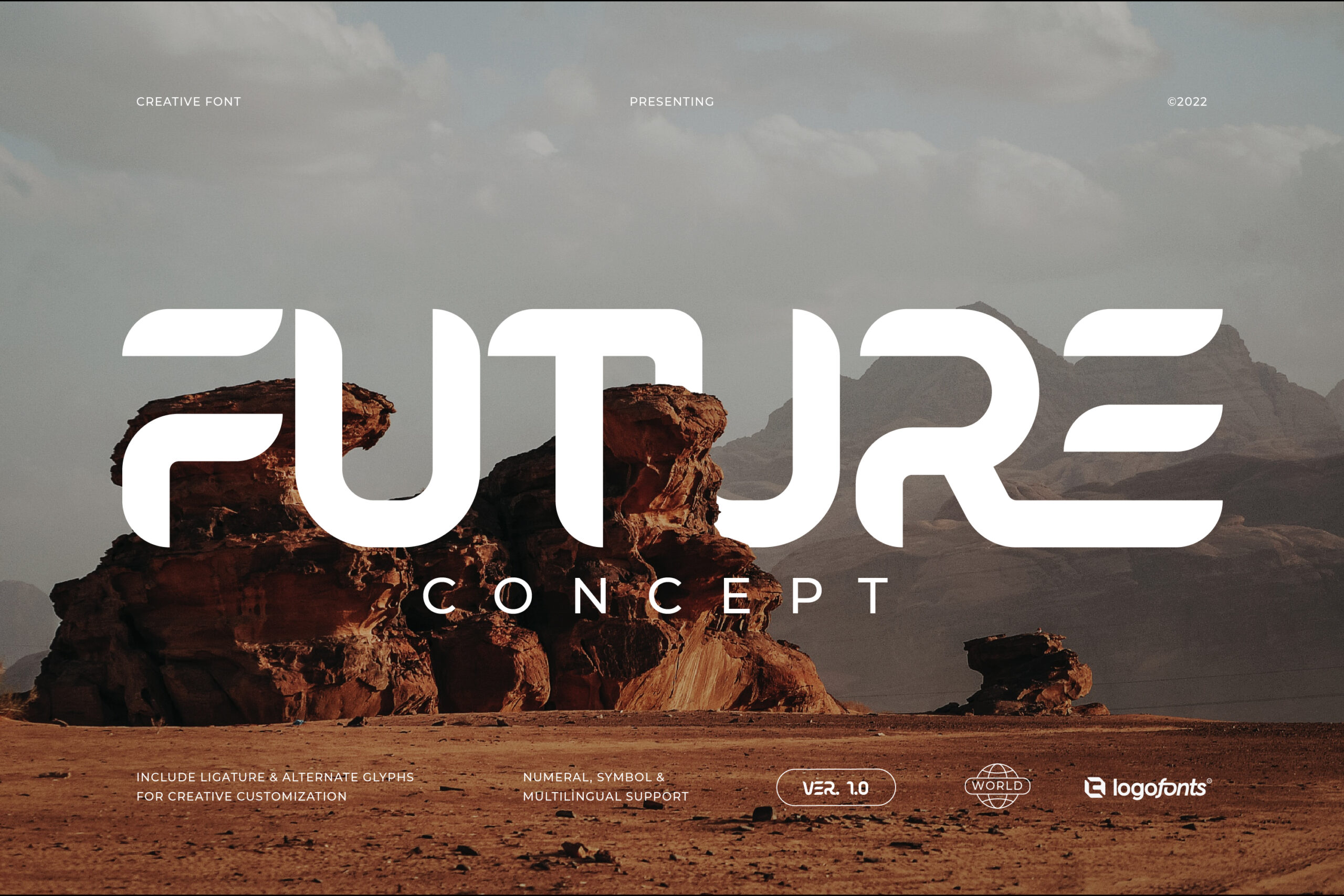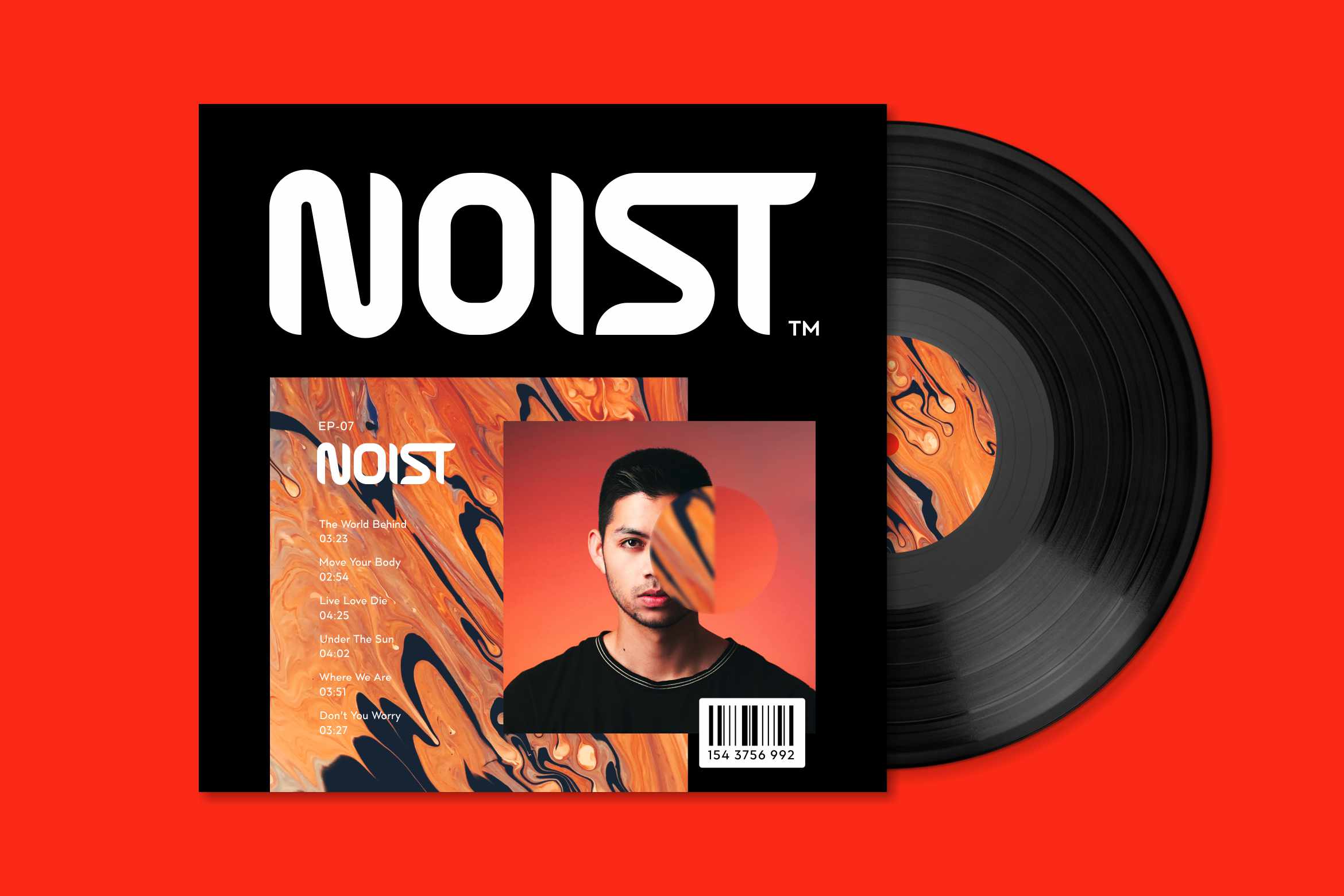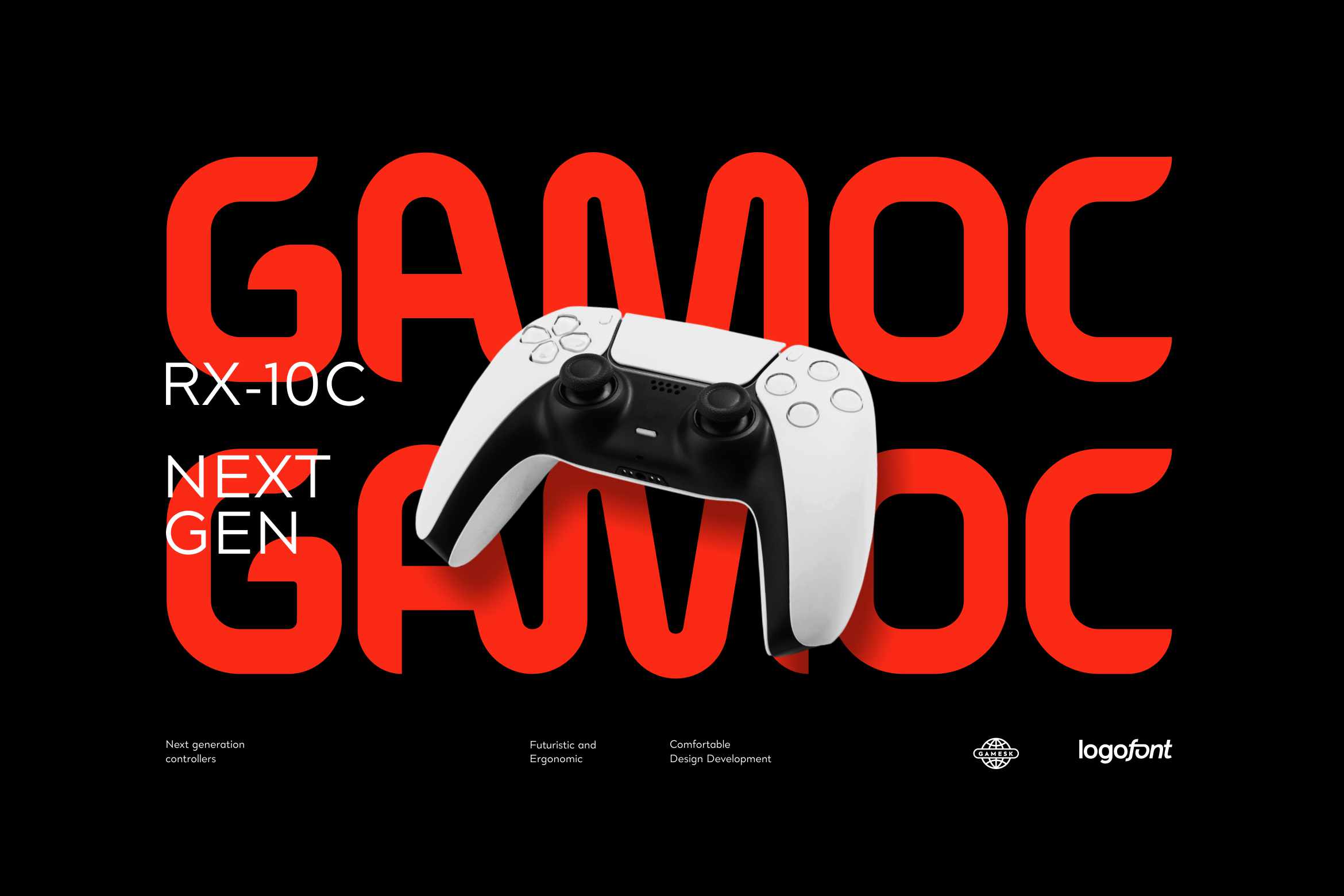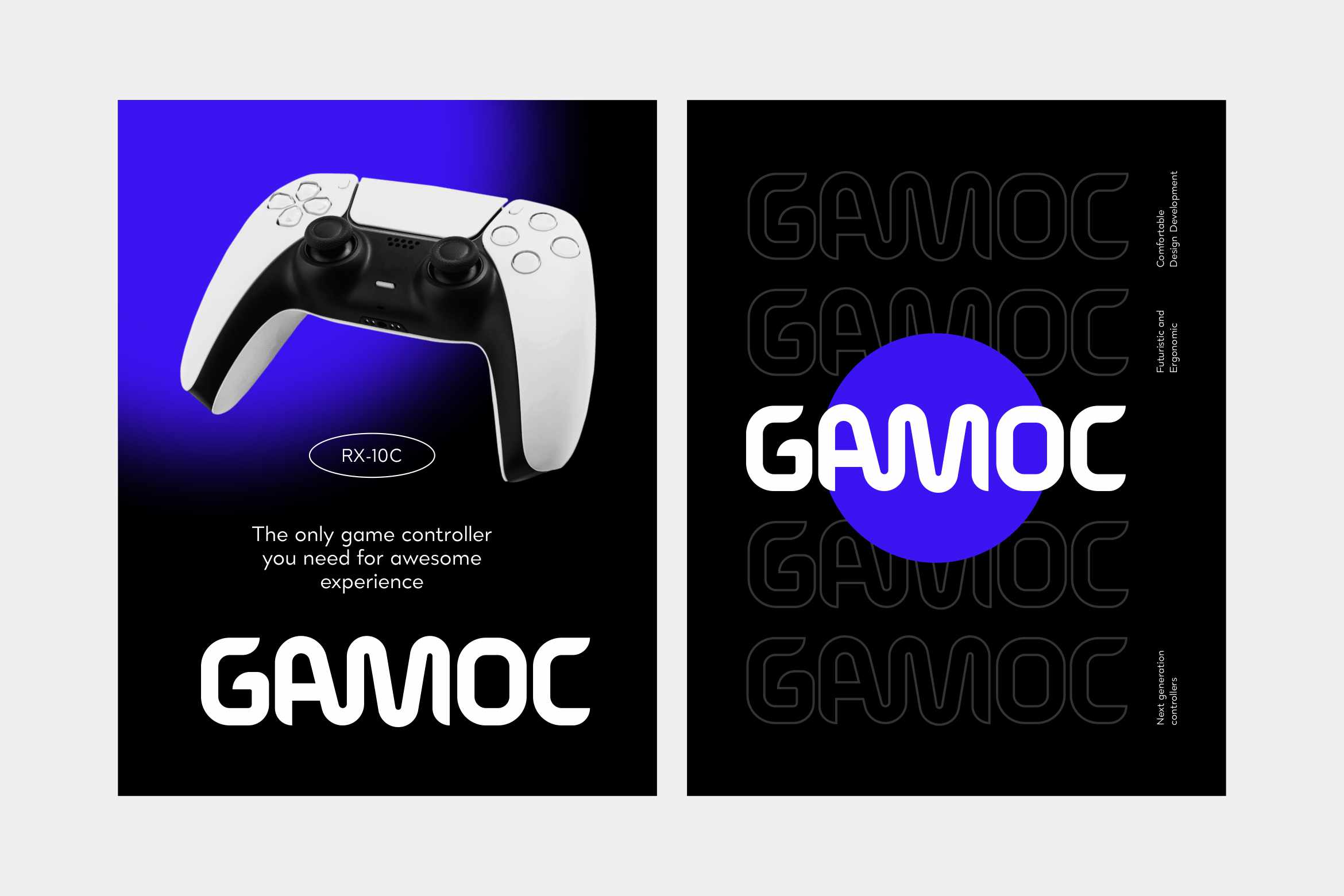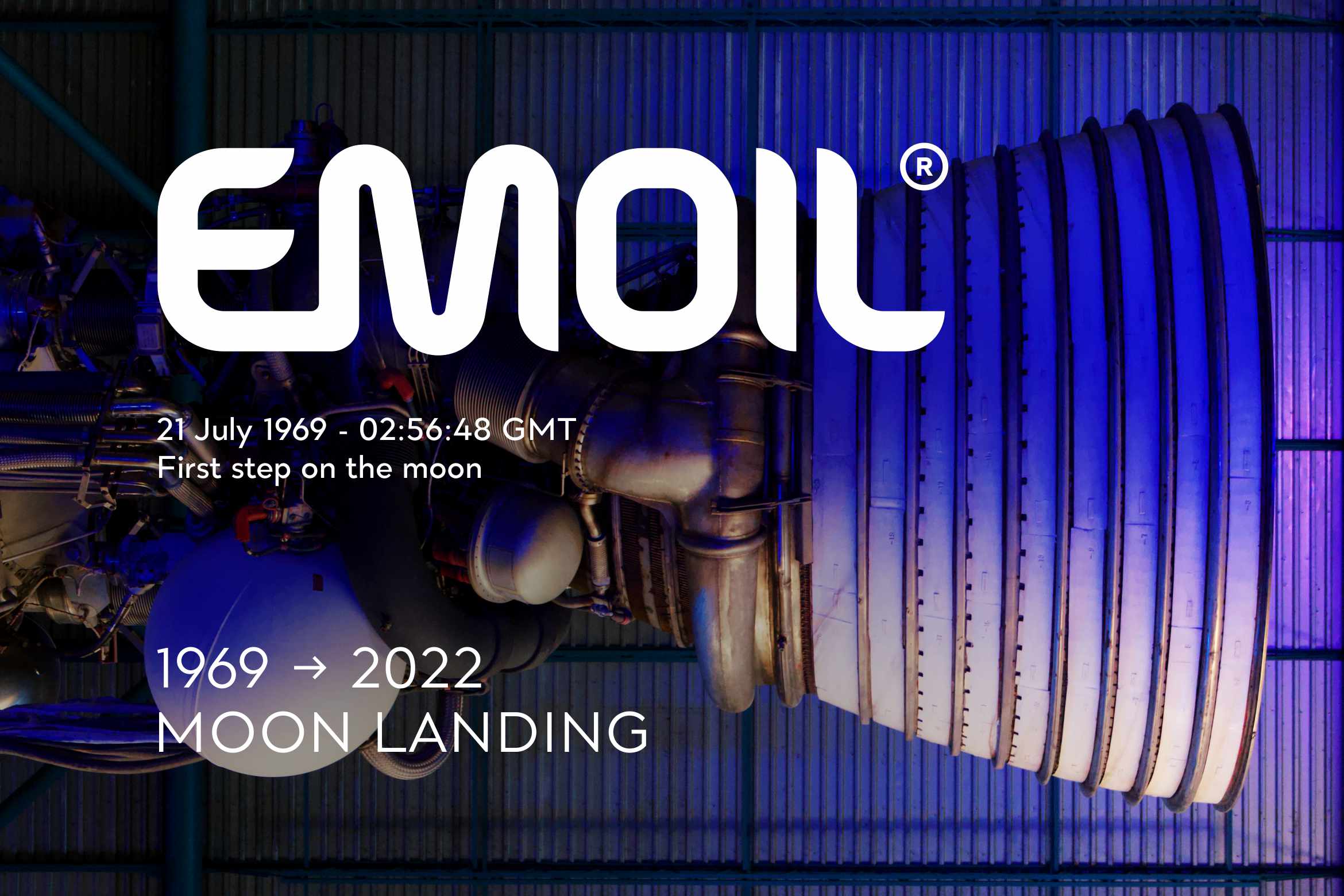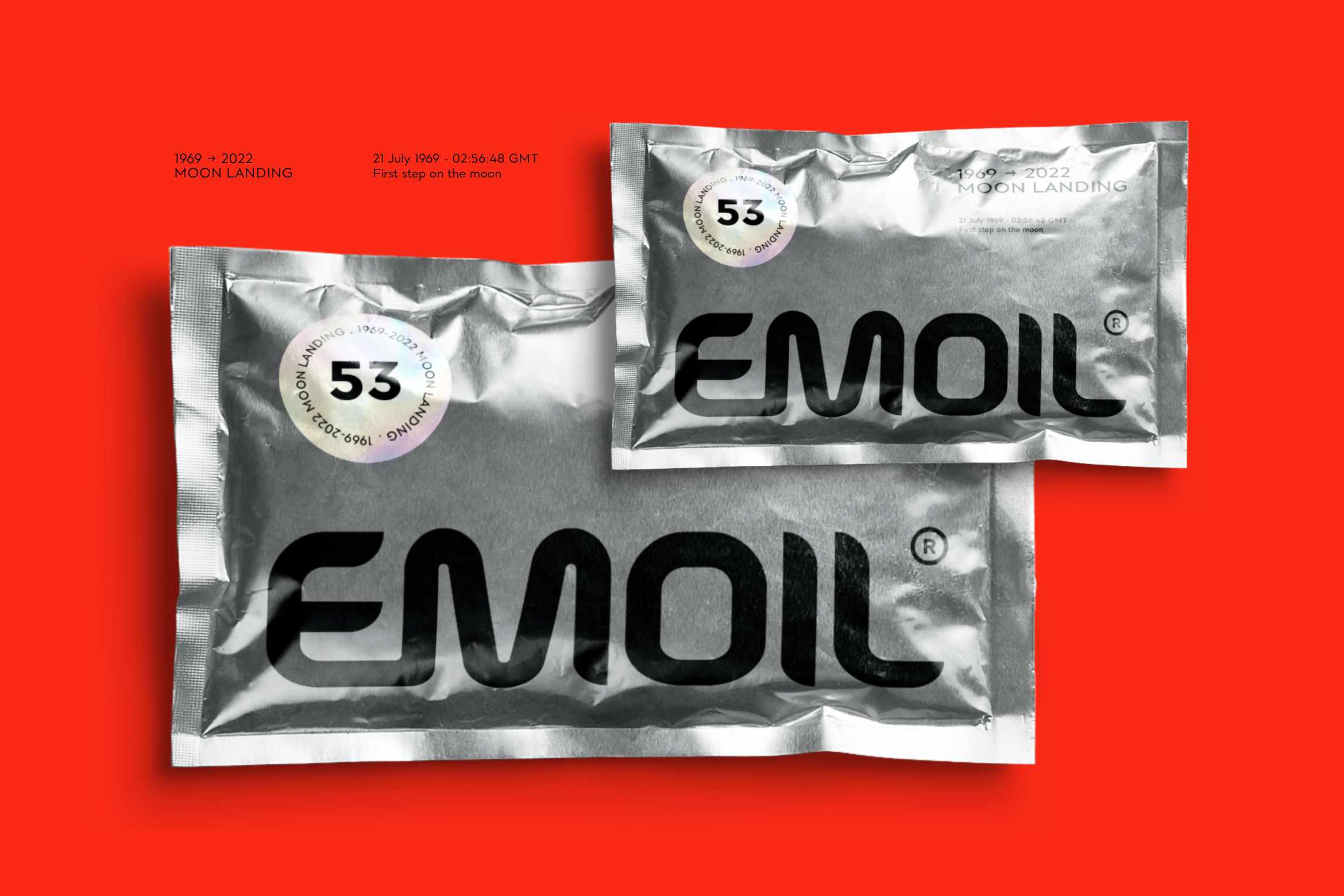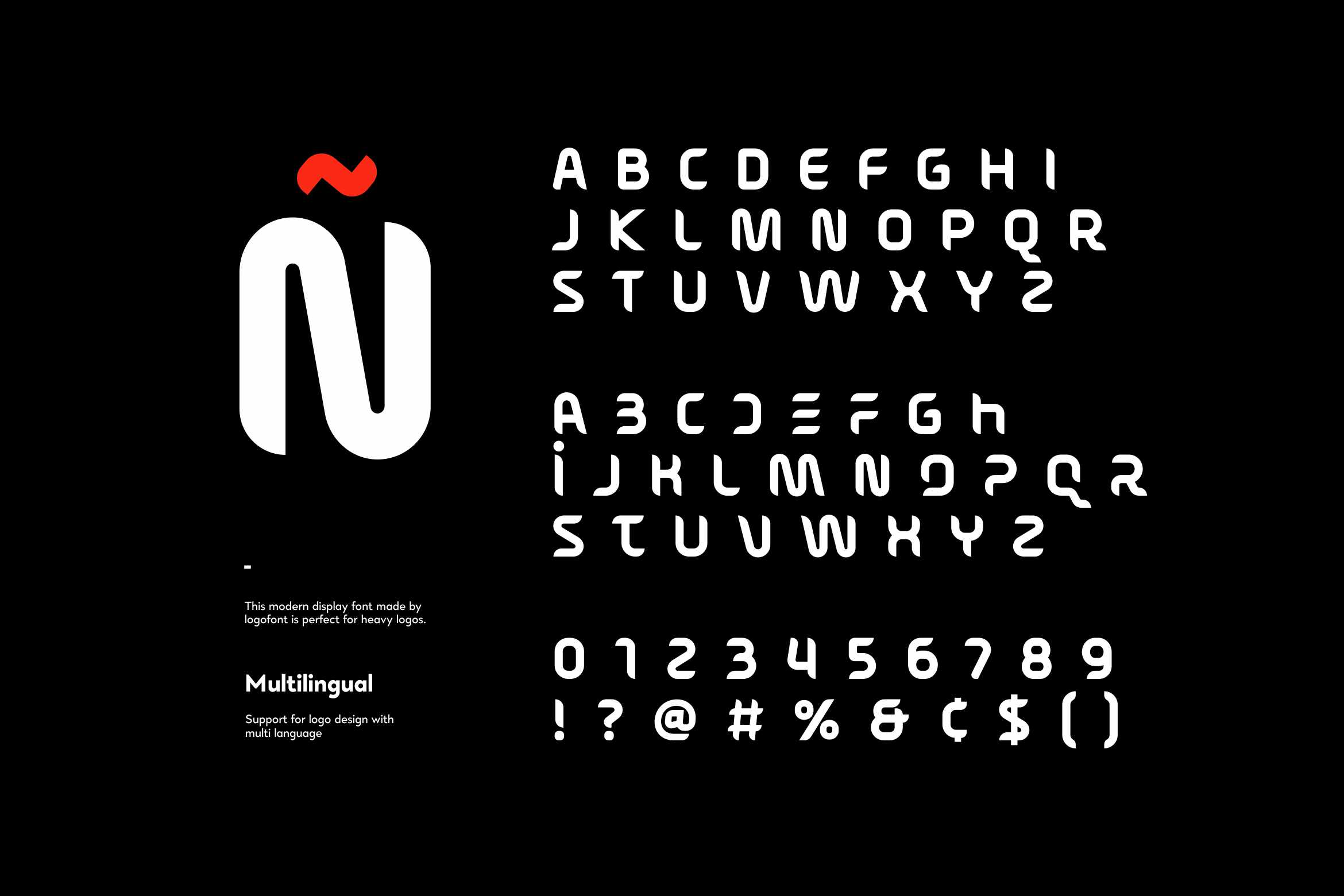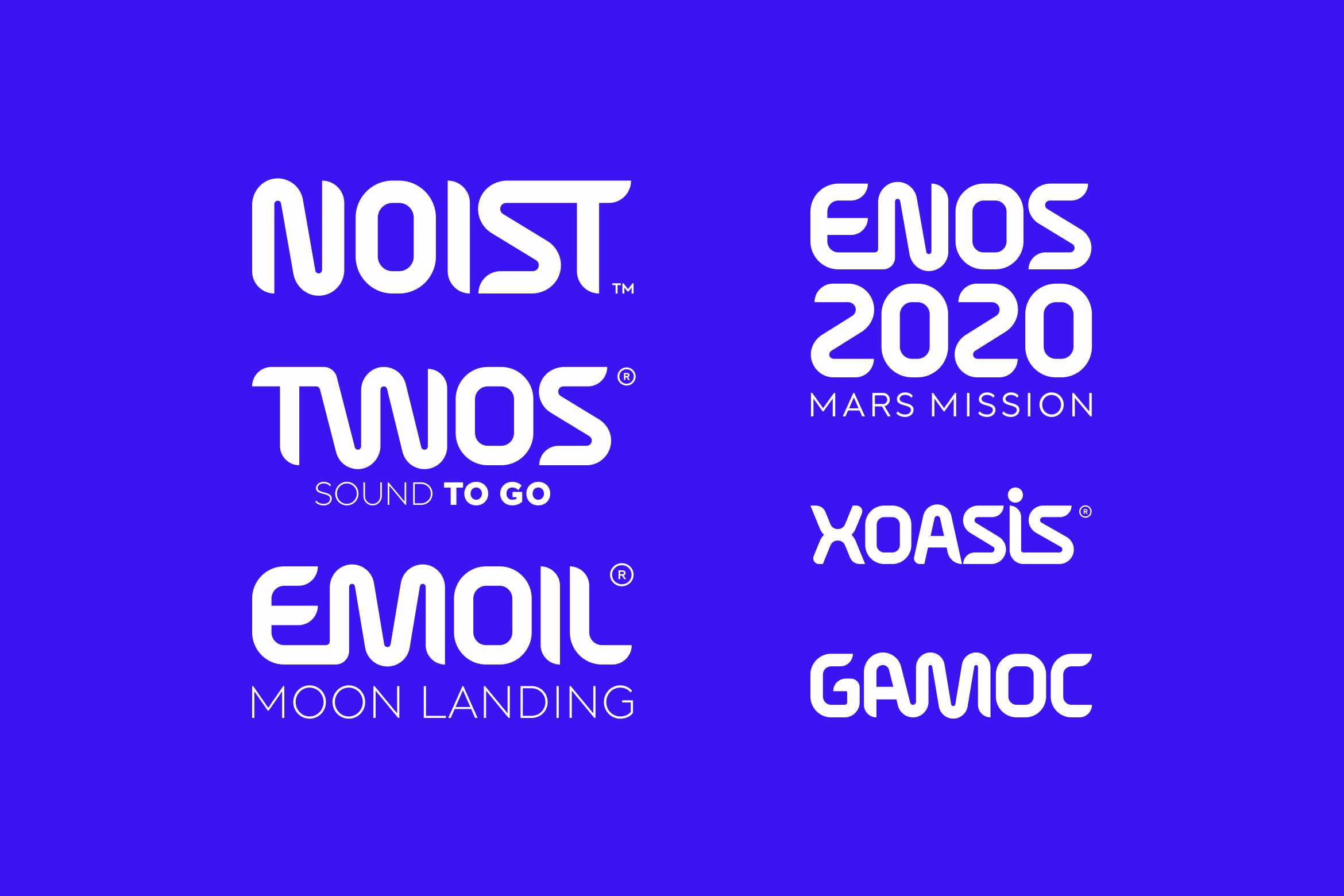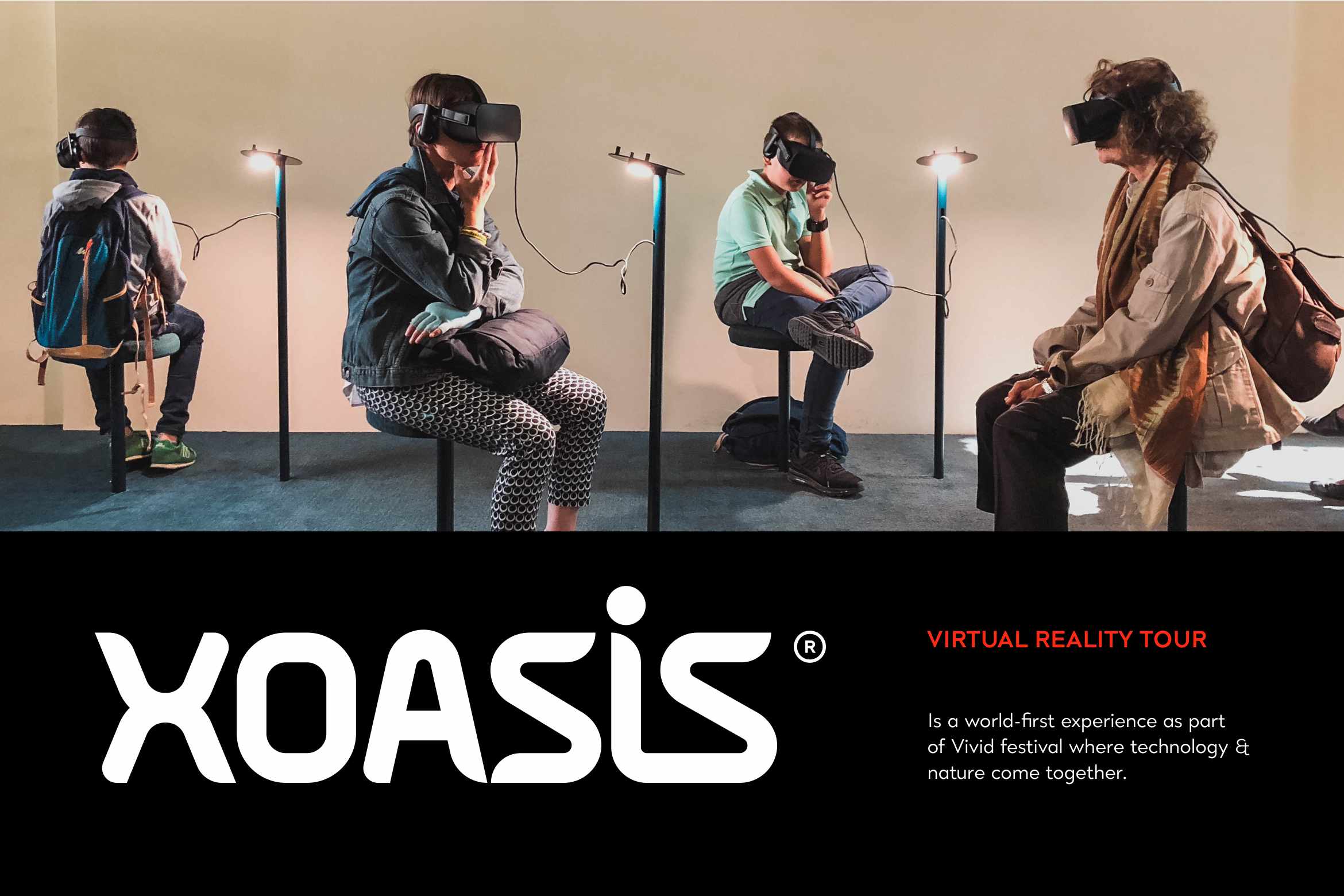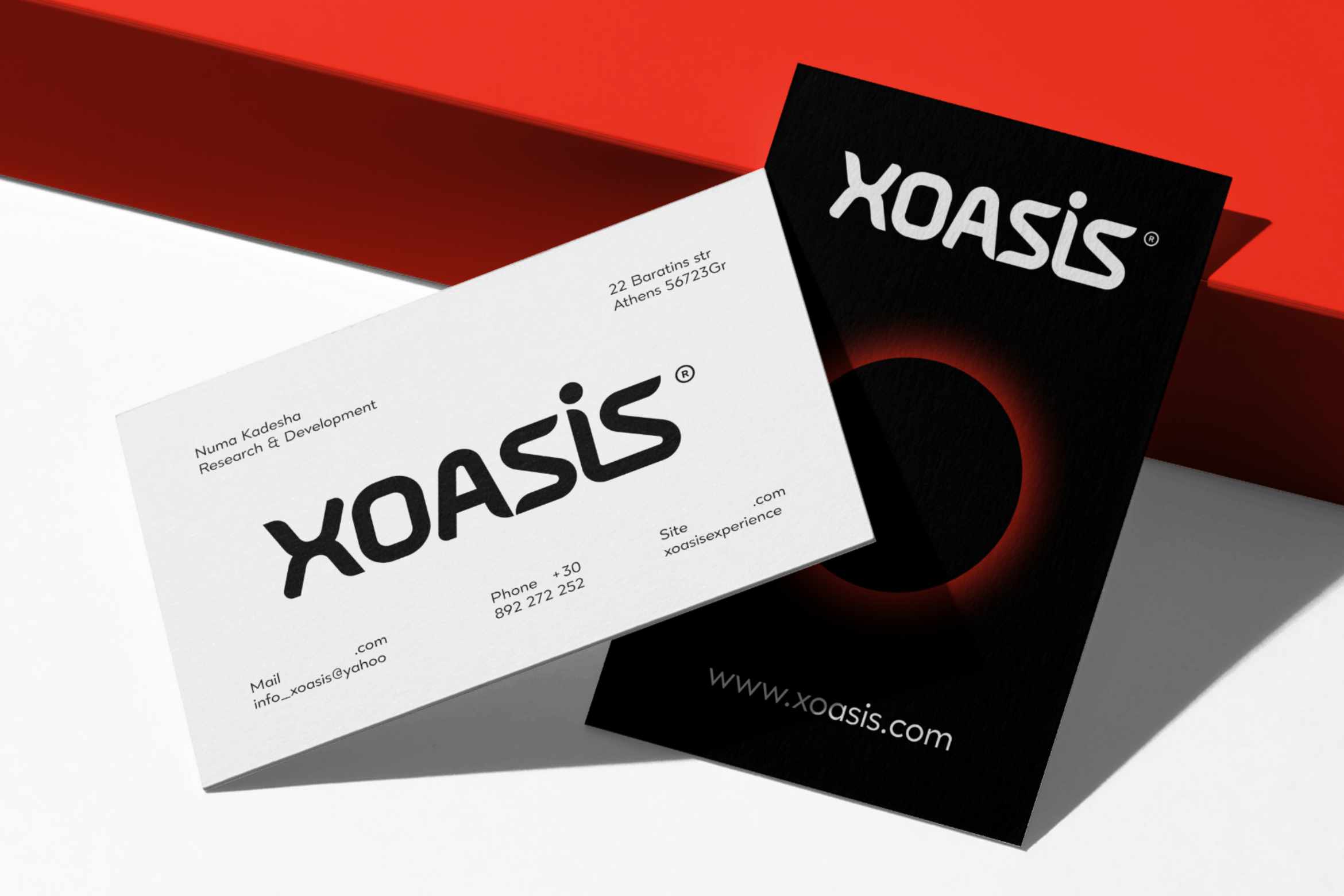
Future Concept
Future Concept is a bold and futuristic display font designed for high-impact visuals and modern branding. Its unique blend of geometric shapes and smooth curves creates a tech-forward look that feels both innovative and stylish. With over 40 custom ligatures and alternate glyphs, this font adds a dynamic and experimental edge to any headline, logo, or digital interface. Whether you’re crafting a brand for gaming, music, or a space-age startup, Future Concept brings a commanding visual identity.
The font supports multilingual characters, numerals, and symbols, making it versatile for global applications. Its distinctive character design is perfect for industries pushing the boundaries of innovation—such as space tech, gaming, electronic music, or digital products. Future Concept isn’t just a typeface; it’s a statement of forward-thinking creativity ready to power your next bold design.